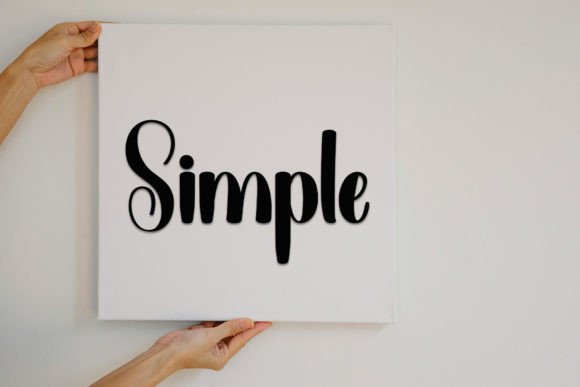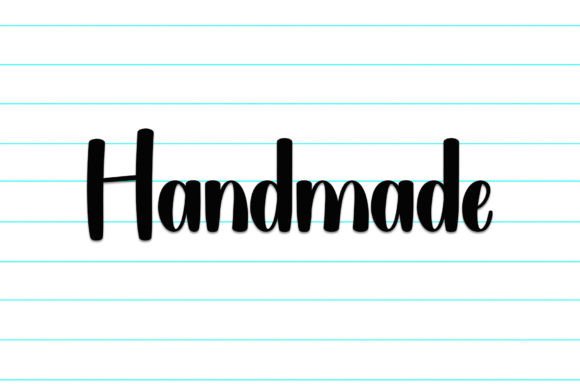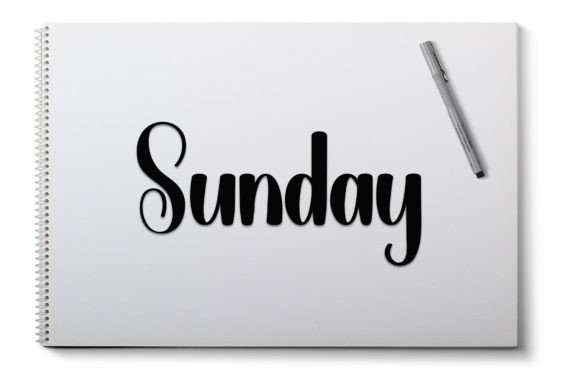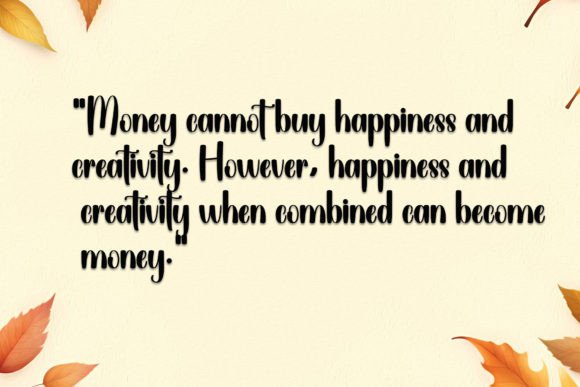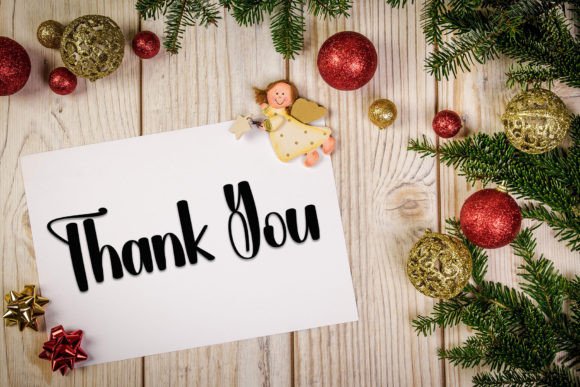
The Perfect Brushstroke: Unlocking the Beauty of Angel Font
Have you ever found yourself scribbling down a brilliant idea in a notebook, only to realize that the words have taken on a life of their own? The ink flows effortlessly, creating a beautiful, handwritten script that seems to dance across the page. It’s moments like these that inspire us to capture the essence of elegance and sophistication in our designs.
Enter Angel Font, a delicate and flowing handwritten font that embodies the same sense of refinement and beauty. With its well-balanced characters, Angel Font is the perfect addition to any design, whether it’s a wedding invitation, a branding project, or a personal blog.
For designers, Angel Font is a valuable tool that can elevate their work to new heights. Its versatility and timeless charm make it a must-have in any font library, and its ability to add a touch of whimsy and personality to any design is unparalleled.
Angel Font Key Features
- Unique Characteristics: Angel Font features elegant, cursive script with intricate details, making it perfect for wedding invitations, greeting cards, and other special occasions.
- Style Variations: Angel Font comes in three styles: Regular, Italic, and Bold, offering versatility for various design needs.
- Scalability: The font is designed to be highly scalable, ensuring it remains legible and beautiful even at small sizes.
Designer Review: Angel Font
When I first laid eyes on the Angel Font, I was struck by its ✨ elegant, flowing curves and subtle whimsy. The font’s versatility shines through in its various weights and styles, making it perfect for a wide range of applications – from romantic wedding invitations to children’s book illustrations.
- The font’s ✨ ligature capabilities are impressive, adding a touch of sophistication to any text.
- Angel Font’s ✨ varied x-heights and ascenders/descenders create a sense of movement and dynamism, perfect for capturing the reader’s attention.
- The font’s ✨ subtle connections to traditional script fonts make it feel both nostalgic and modern.
However, I do have a few reservations about the Angel Font. The ⚠️ kerning can be inconsistent at times, particularly between certain letter combinations. Additionally, the font’s ⚠️ lower weights can appear somewhat fragile or weak, which may not be ideal for applications requiring a strong, bold statement.
Overall, I think the Angel Font is a beautiful, versatile addition to any designer’s toolkit. While it may require some finessing to get the most out of it, its unique charm and visual appeal make it well worth the effort.
Angel Font is ideal for:
- Birth announcements and baby showers
- Wedding and event branding
- Stationery and letterhead